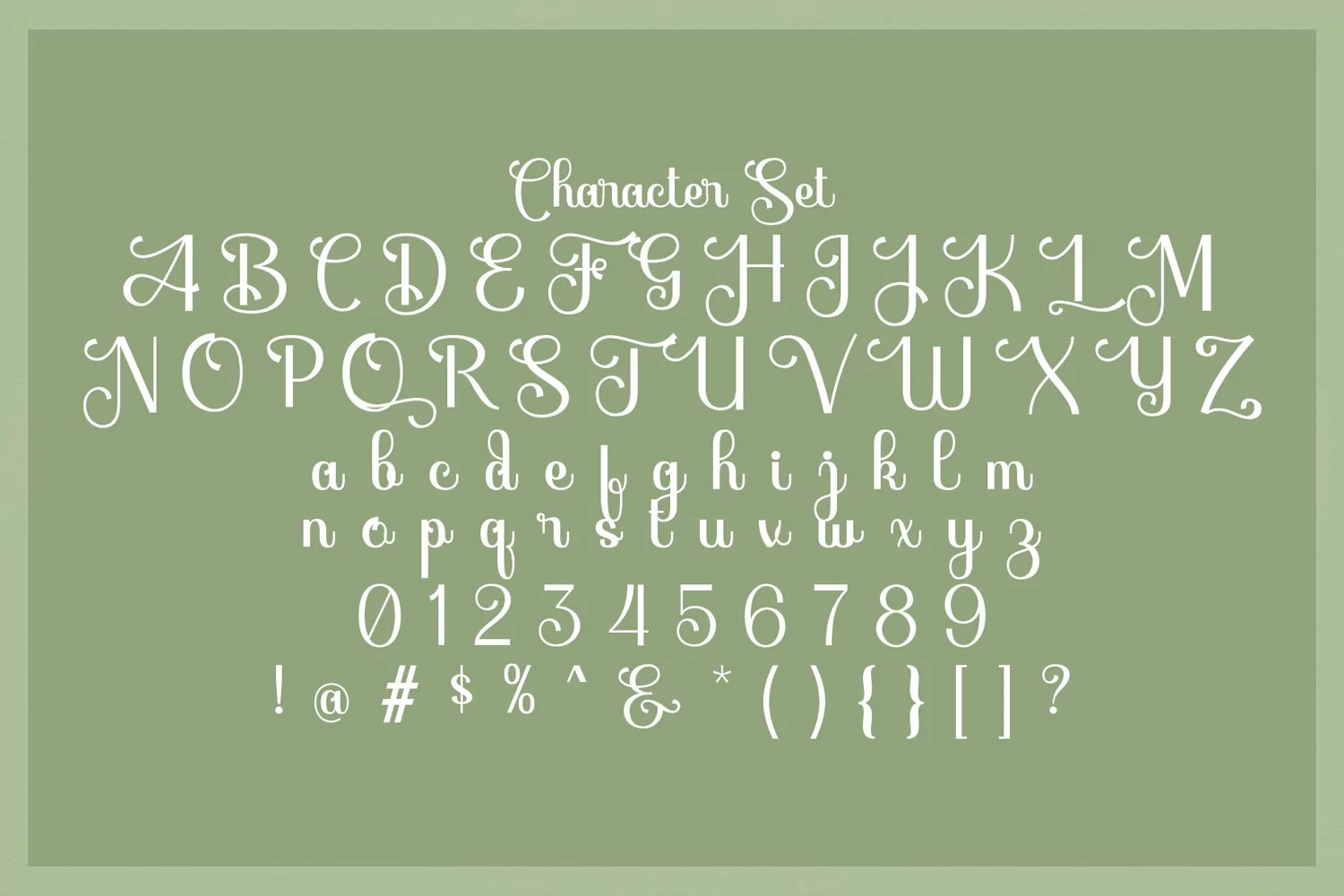
Curlacious Script is a modern calligraphy typeface. With the contrast, that’s great for any display use from packaging to poster and logotype to headline.